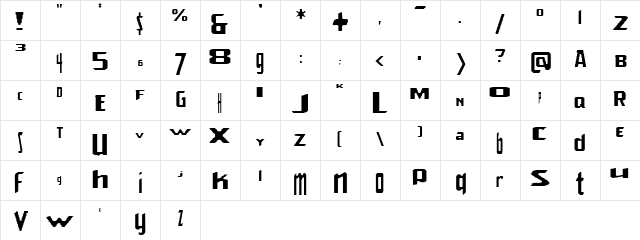
Venereal Strobe Effect Regular
Design Context for Venereal Strobe Effect Typeface
Venereal Strobe Effect is a composed and adaptable typeface that performs quietly and consistently across a wide range of design contexts.